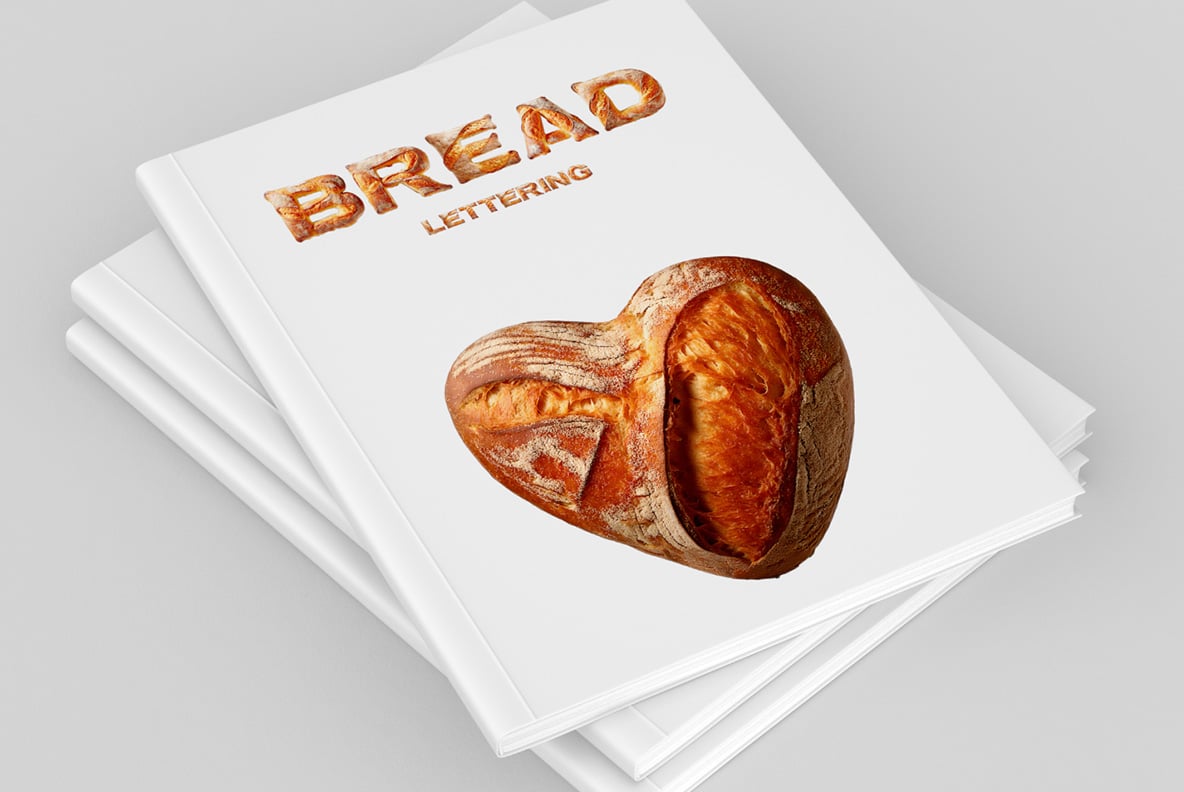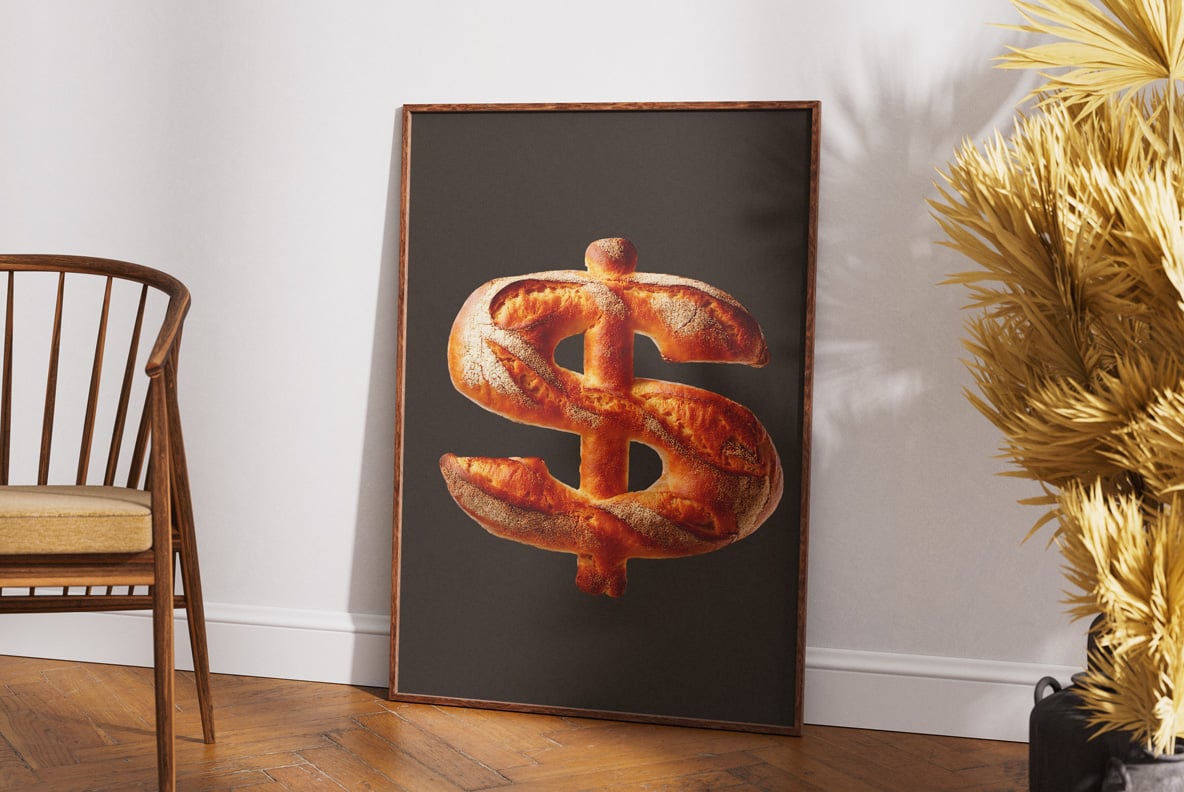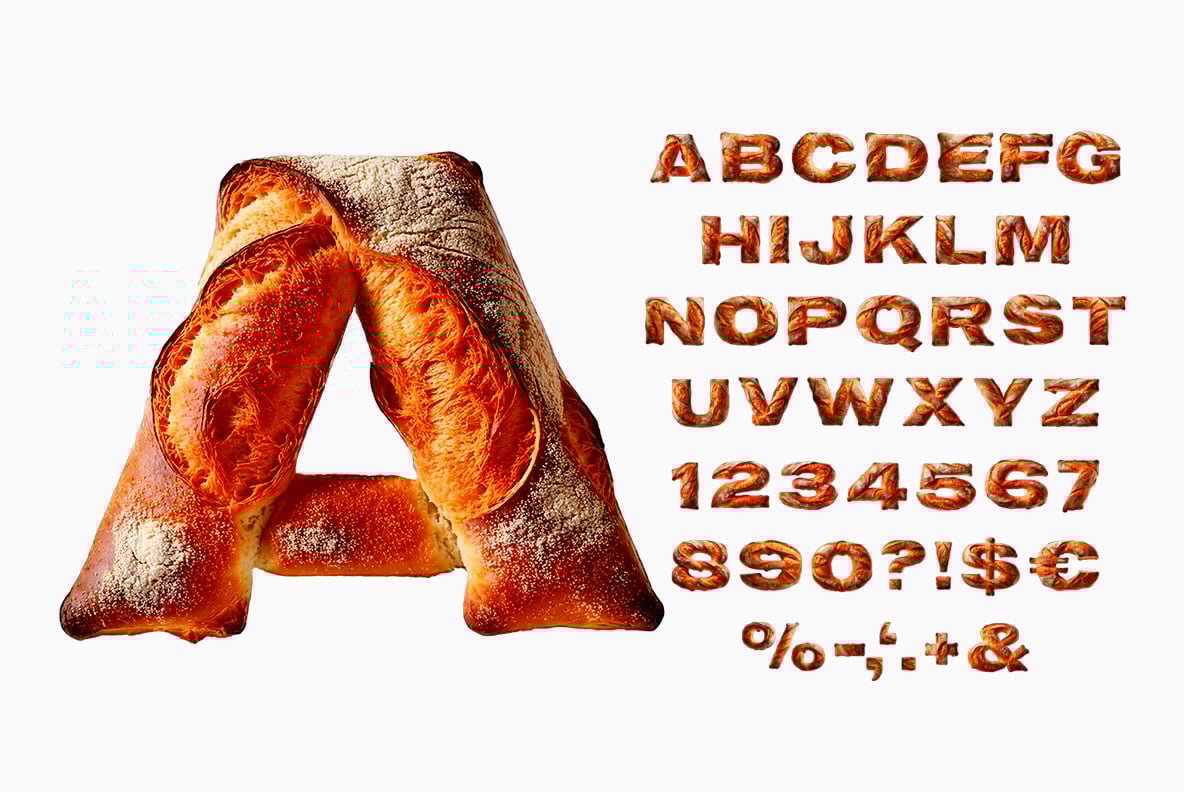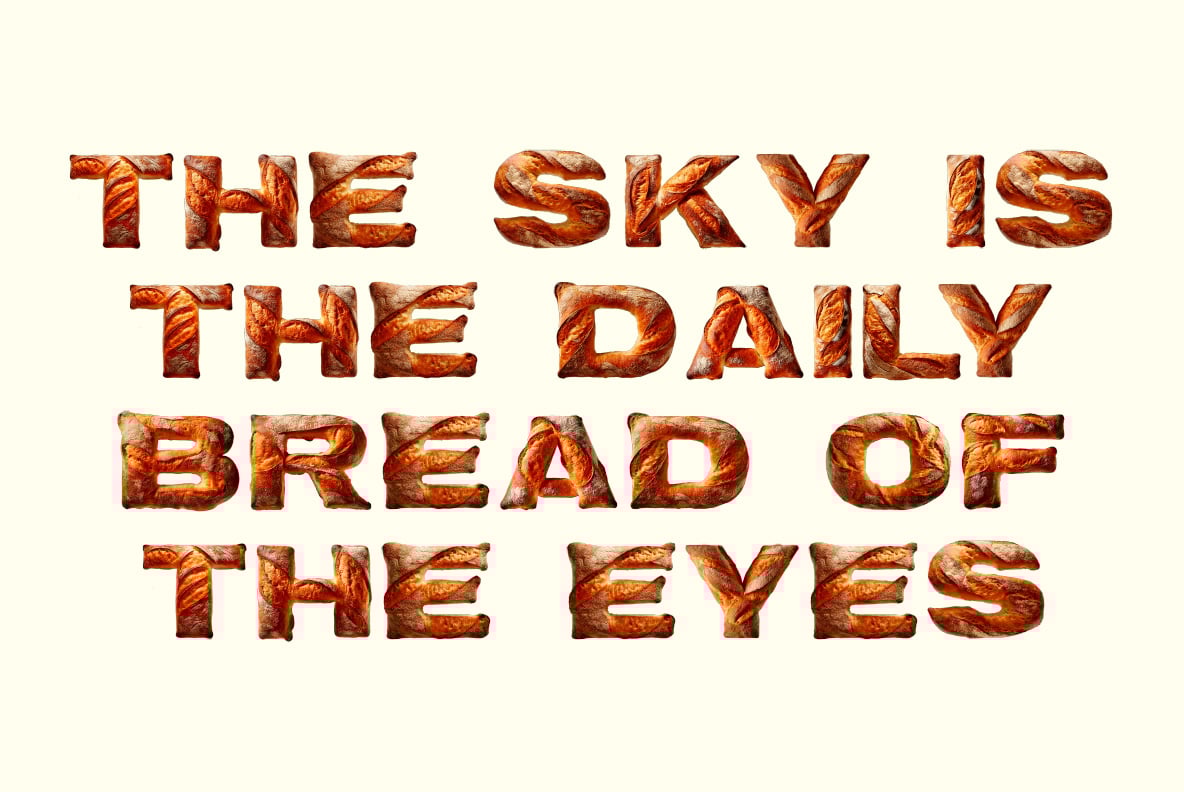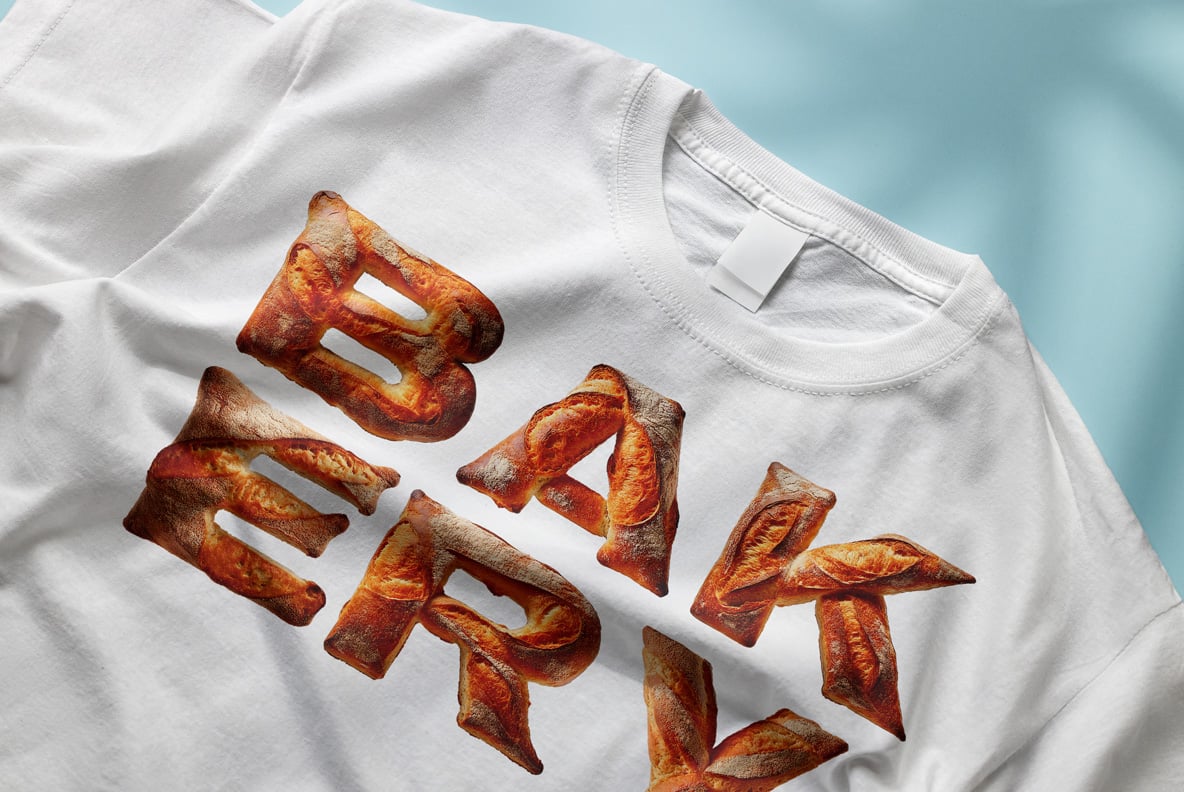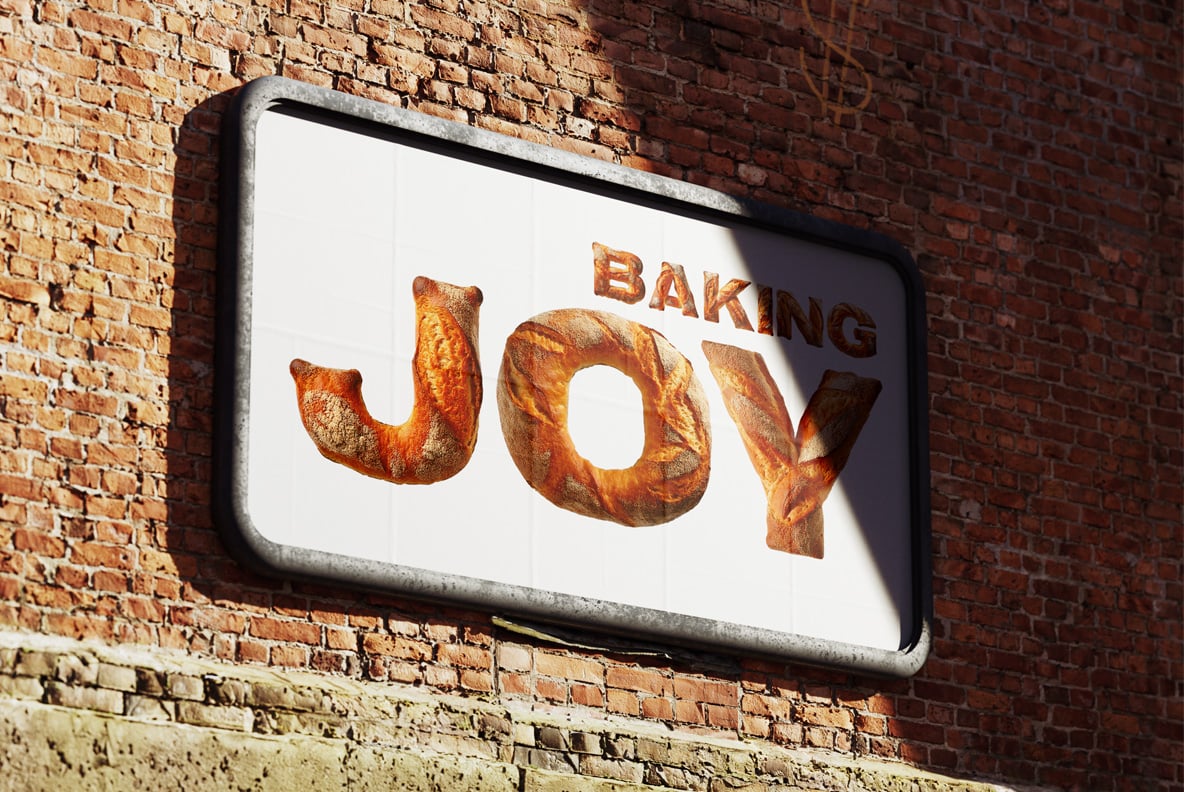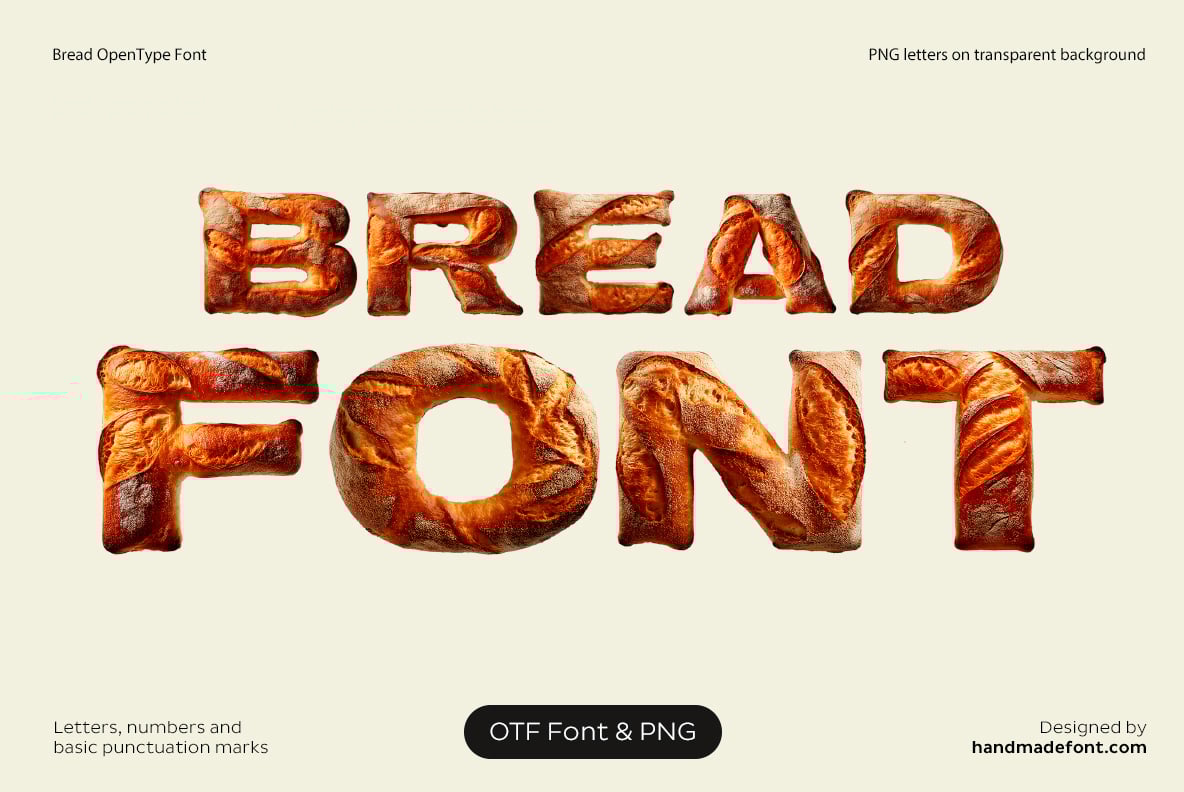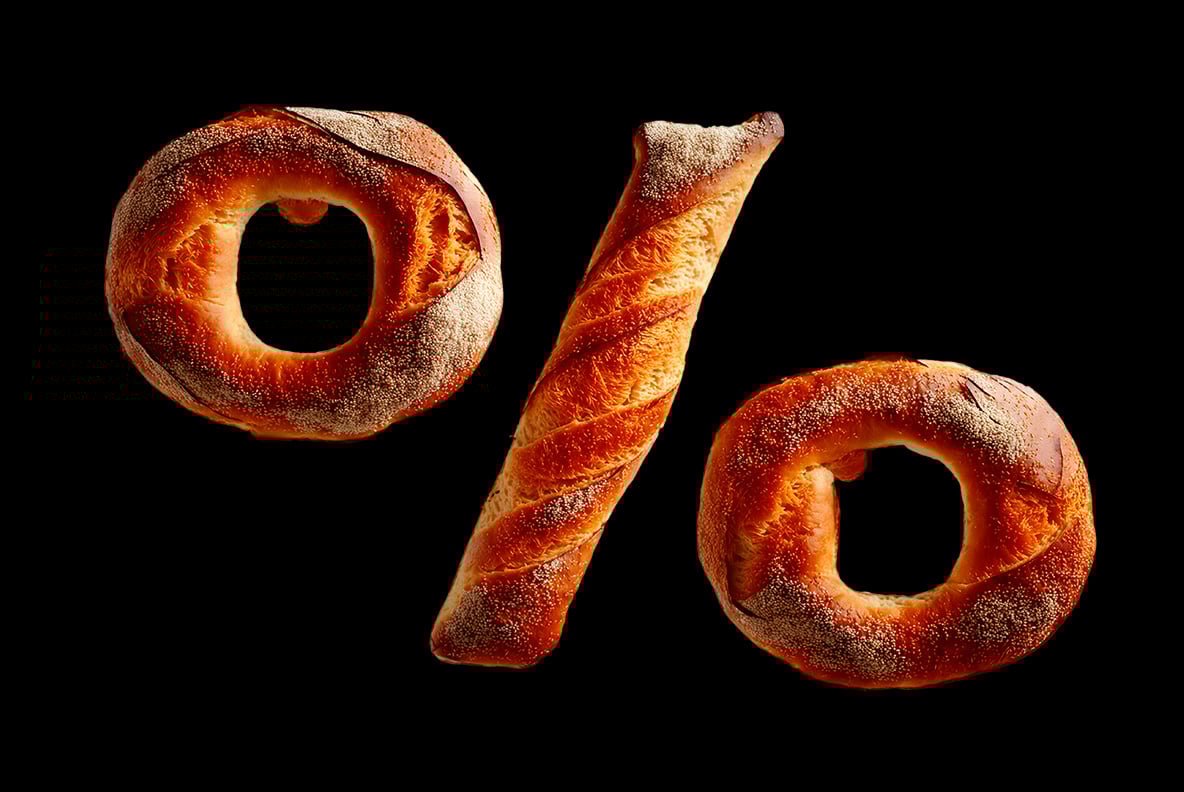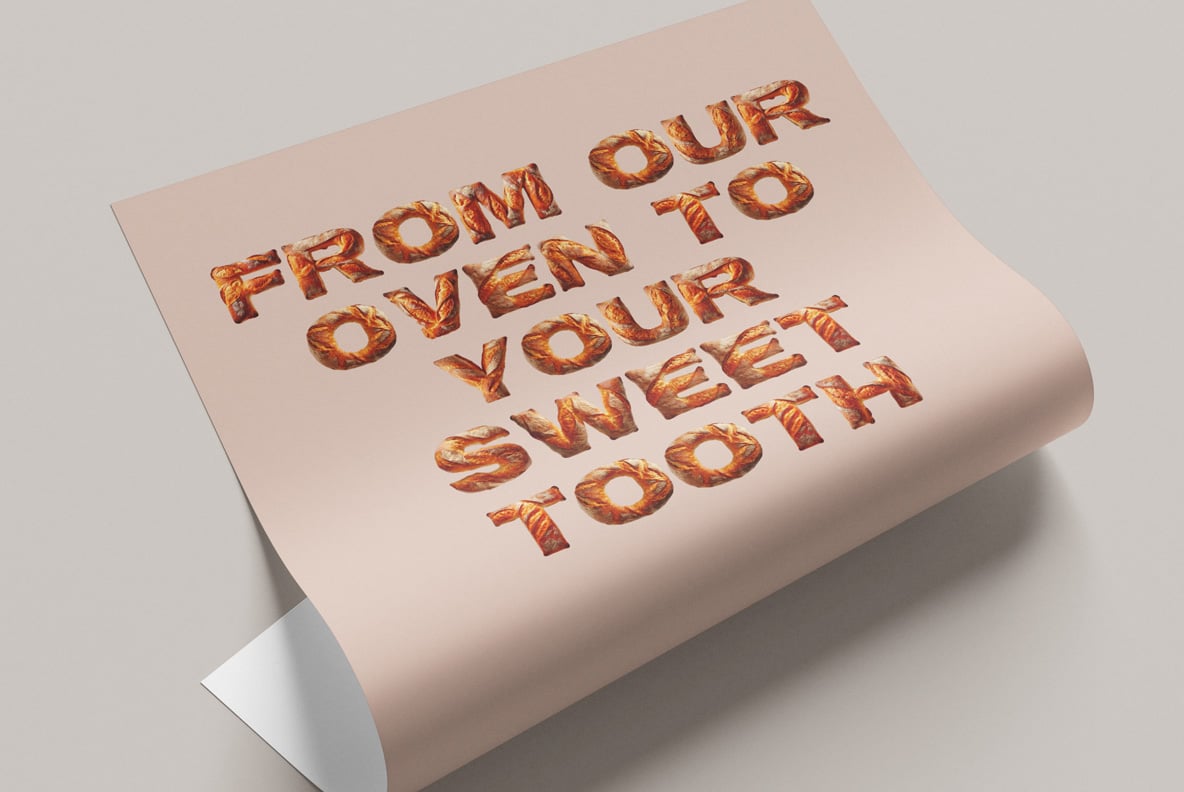
Bold Bread Font
The "Bread Font" brings warm, artisanal charm to your designs, with each letter crafted to resemble soft, fluffy loaves and crispy crusts. Perfect for food branding, bakeries, and playful graphics, this bread-inspired alphabet feels both delicious and creative. Add a touch of rustic warmth with letters shaped like golden rolls, baguettes, and buns—making words look almost good enough to eat!